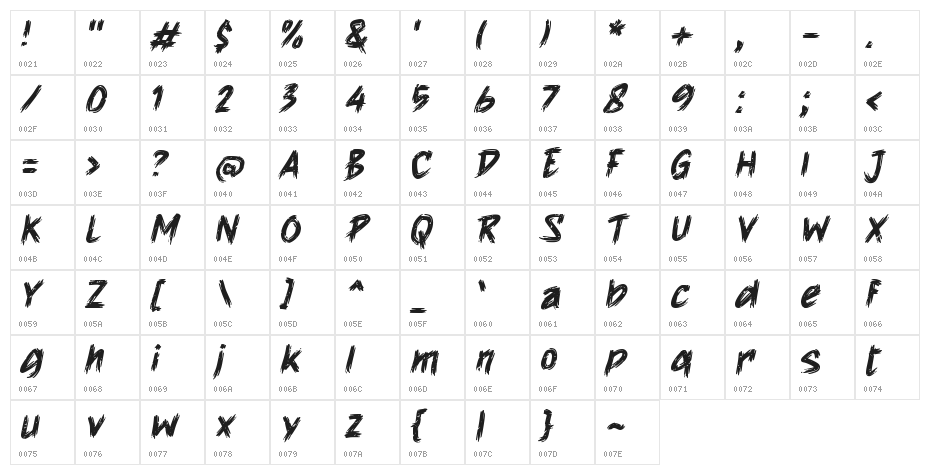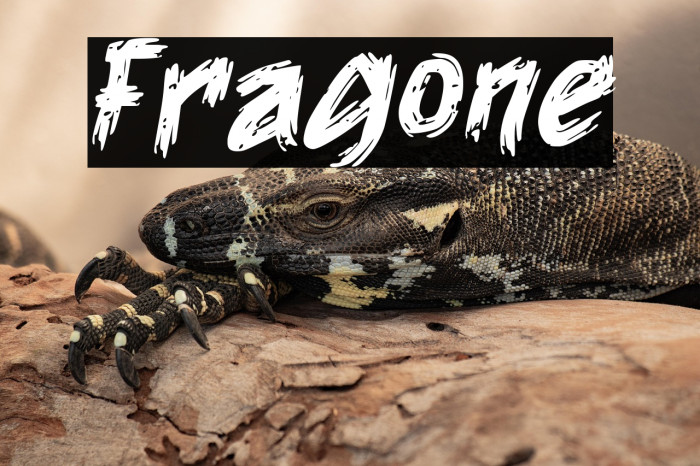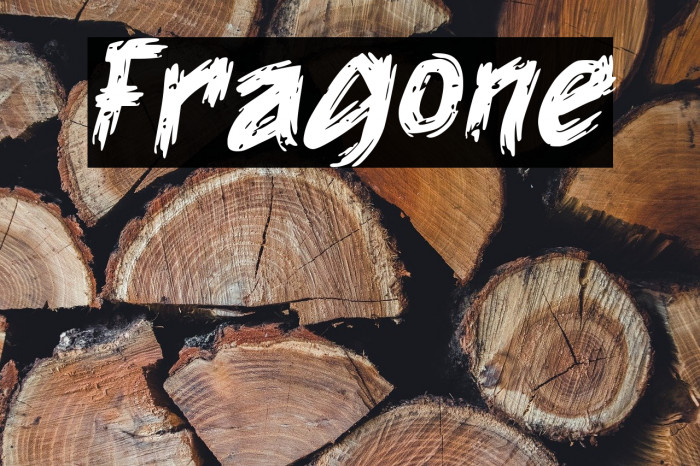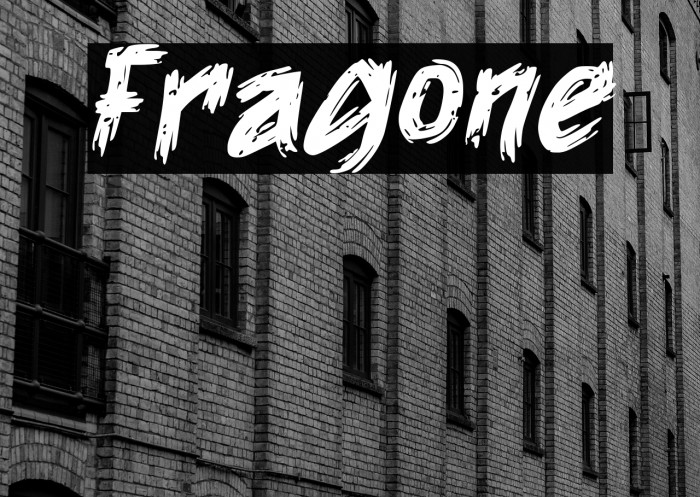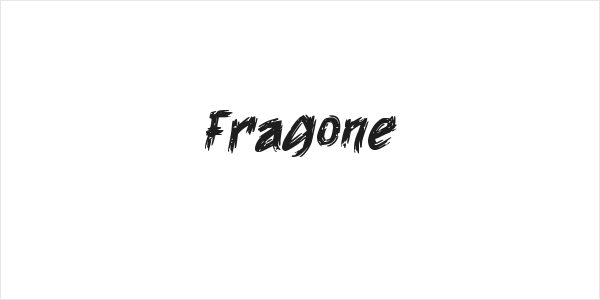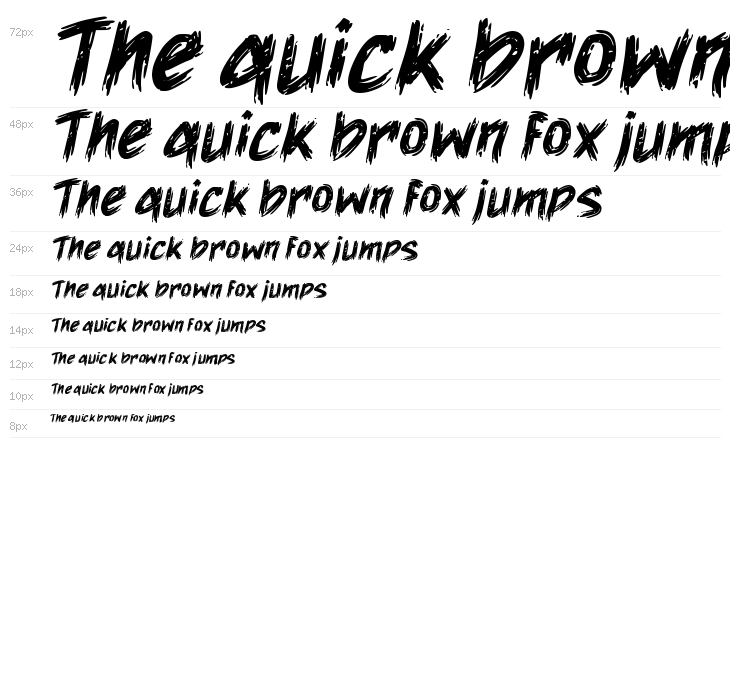
Fragone Font
Fragone Description
This font features a bold and dynamic brushstroke style, characterized by its energetic and rough texture. The letters have a hand-drawn appearance, with uneven edges and varying thickness that give it a raw, expressive feel. The uppercase and lowercase letters maintain a consistent style, with a slight slant that adds to the sense of motion. Numbers and special characters are equally bold and maintain the same brushstroke aesthetic, making them stand out. This font is ideal for projects that require a strong visual impact and a sense of creativity and spontaneity.
| Overall Style | Modern, Artistic |
| Proposed Projects | Ideal for posters, album covers, branding, and any design needing a bold, artistic touch. |